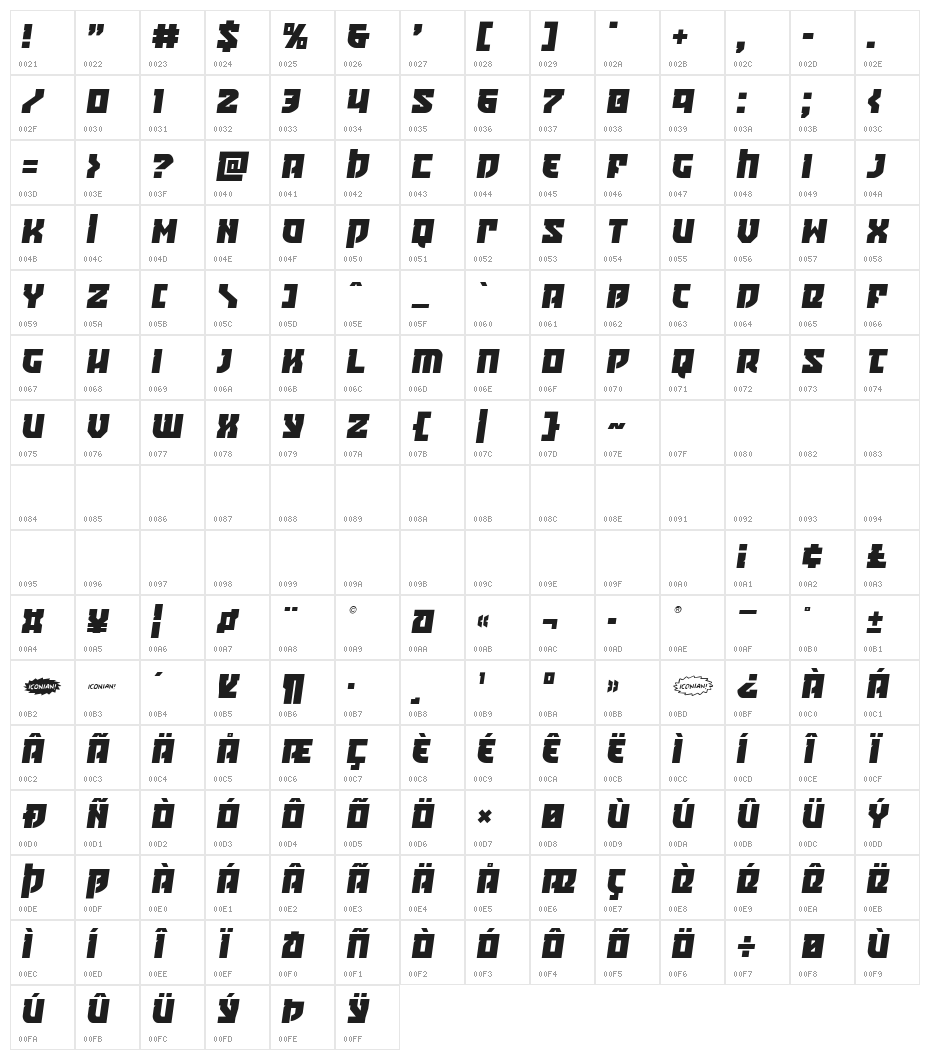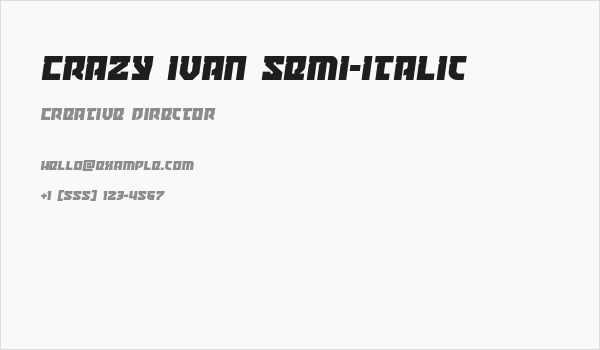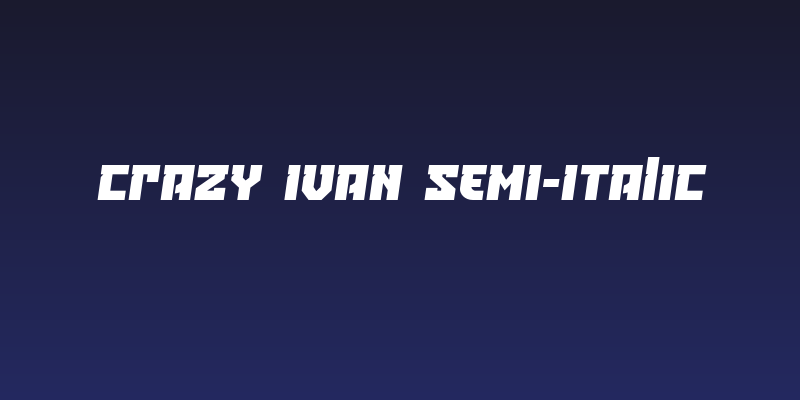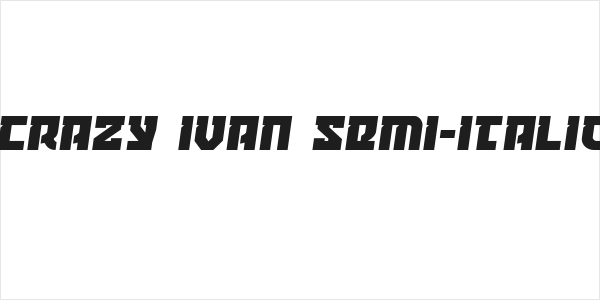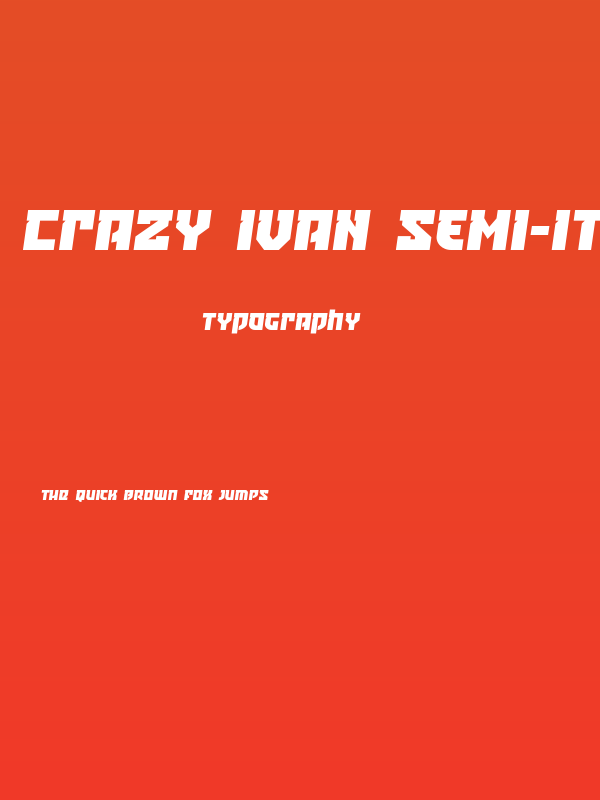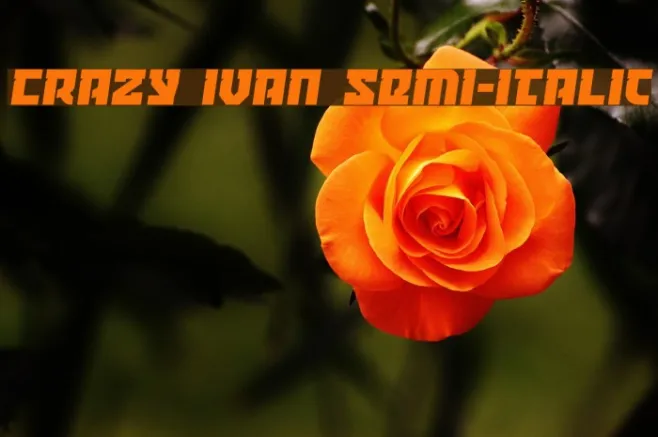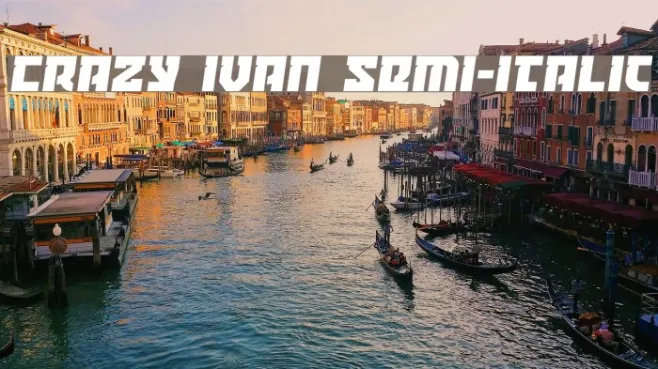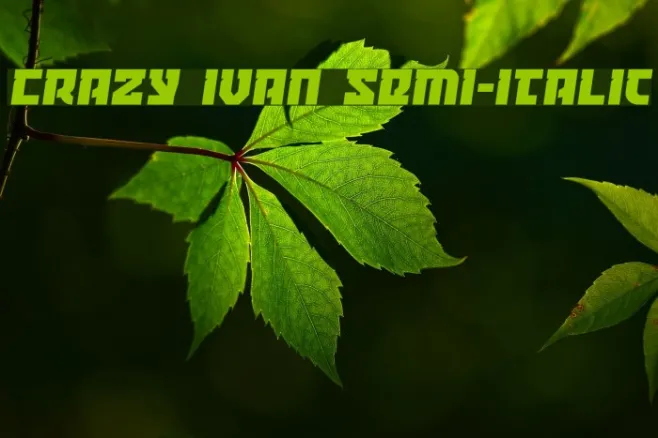
Crazy Ivan Semi-Italic Font
Crazy Ivan Semi-Italic Description
This font features a bold and dynamic design with sharp, angular edges and a distinct slant, giving it a semi-italic appearance. The characters are heavily stylized, with a futuristic and aggressive look that makes them stand out. The uppercase and lowercase letters maintain a consistent style, with wide strokes and a strong presence. The numerals and special characters follow the same design principles, ensuring uniformity across all glyphs. This font is ideal for projects that require a bold statement and a modern, edgy aesthetic.
| Proposed Projects | Ideal for video game titles, sports branding, posters, and any project needing a bold, modern impact. |